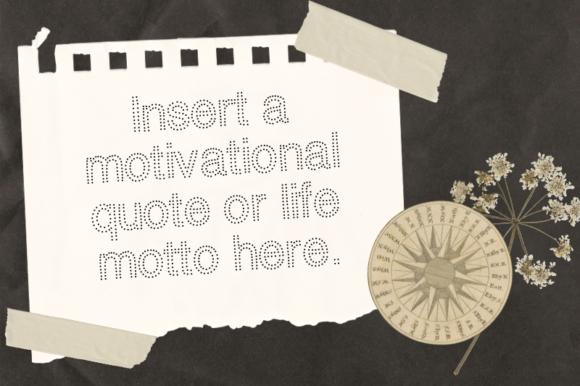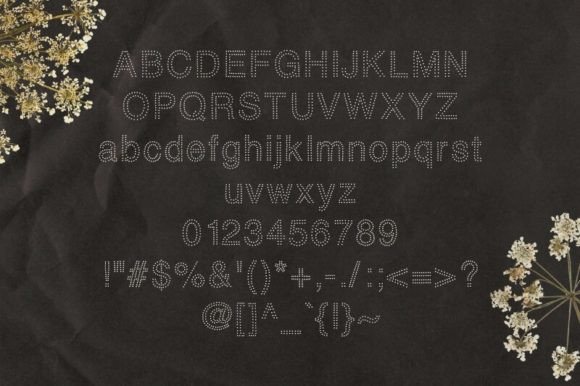
Introducing Dotify Font: Unleash Your Creativity with Dotted Delight
Get ready to connect the dots with Dotify, the funky, dotted outline display font that’s bursting with creative potential! Whether you’re diving into technical designs, unleashing your artistic side, or crafting dreamy, whimsical projects, Dotify adds a unique twist to your text. With its playful dotted style, this font is perfect for making your work stand out and sparking curiosity.
The Birth of Dotify: A Font with a Twist
Dotify is more than just a font – it’s an experience. Imagine a world where every letter is a puzzle waiting to be solved, where every word is a visual journey that invites the reader to engage on a deeper level. This is the world of Dotify, a font designed to inspire creativity and spark imagination.
With its distinctive dotted outline style, Dotify is perfect for designers, crafters, and artists looking to add a touch of whimsy to their work. Whether you’re creating a logo, a poster, or a digital graphic, Dotify is sure to make your project stand out from the crowd.
Exploring the Creative Potential of Dotify
So, what makes Dotify so special? Here are just a few ways you can use this versatile font to unleash your creativity:
- Technical Designs: Add a touch of personality to your technical designs with Dotify’s unique dotted style. Perfect for creating eye-catching diagrams, infographics, and presentations.
- Artistic Projects: Unleash your artistic side with Dotify’s playful, hand-drawn feel. Use it to create stunning artwork, illustrations, and mixed-media projects.
- Whimsical Creations: Bring a touch of magic to your dreamy, whimsical projects with Dotify’s enchanting dotted style. Perfect for creating fantasy-inspired graphics, animations, and stories.
The Benefits of Using Dotify
So, why choose Dotify for your next project? Here are just a few benefits of using this amazing font:
- Unique Style: Dotify’s dotted outline style is unlike anything you’ve seen before. It’s the perfect way to add a touch of personality to your work and make it stand out.
- Versatility: Dotify is a versatile font that can be used for a wide range of projects, from technical designs to artistic creations.
- Easy to Read: Despite its unique style, Dotify is easy to read and understand, making it perfect for use in body text, headings, and titles.
Dotify is more than just a font – it’s a creative adventure waiting to happen. With its unique dotted outline style, versatility, and ease of use, Dotify is the perfect choice for designers, crafters, and artists looking to add a touch of whimsy to their work.
So, go ahead and let your imagination run wild with Dotify. Connect the dots, unleash your creativity, and watch as your projects come to life in a whole new way!